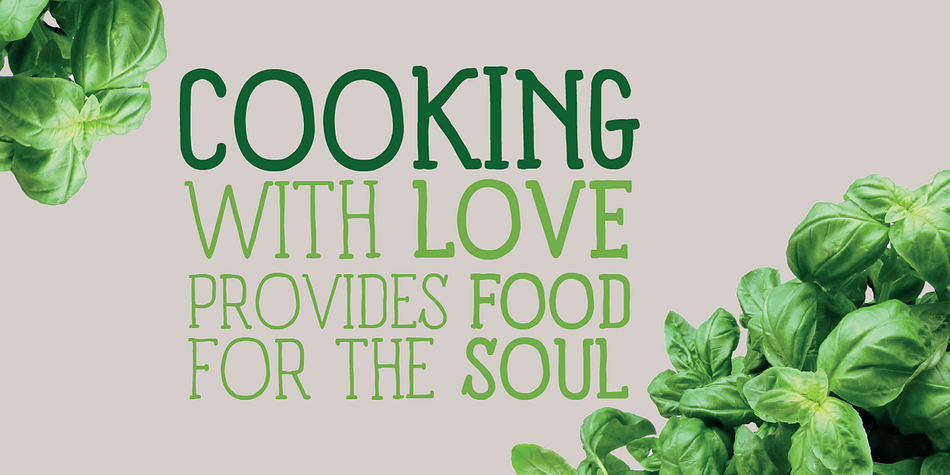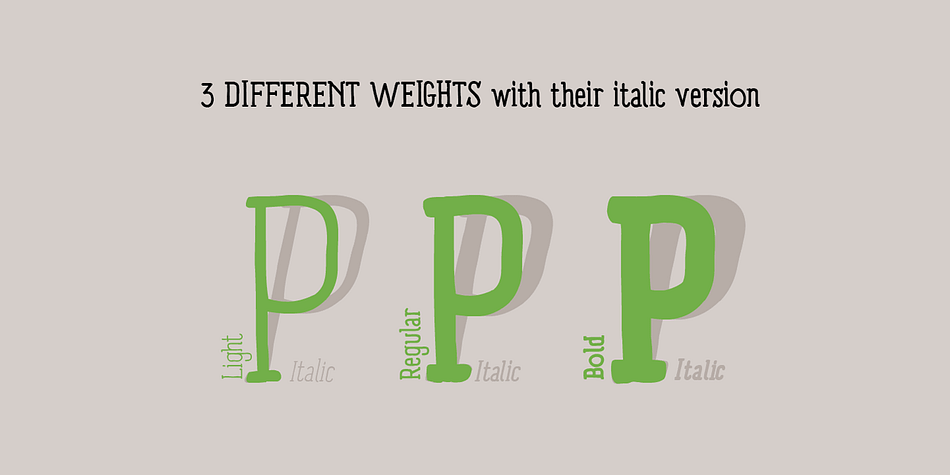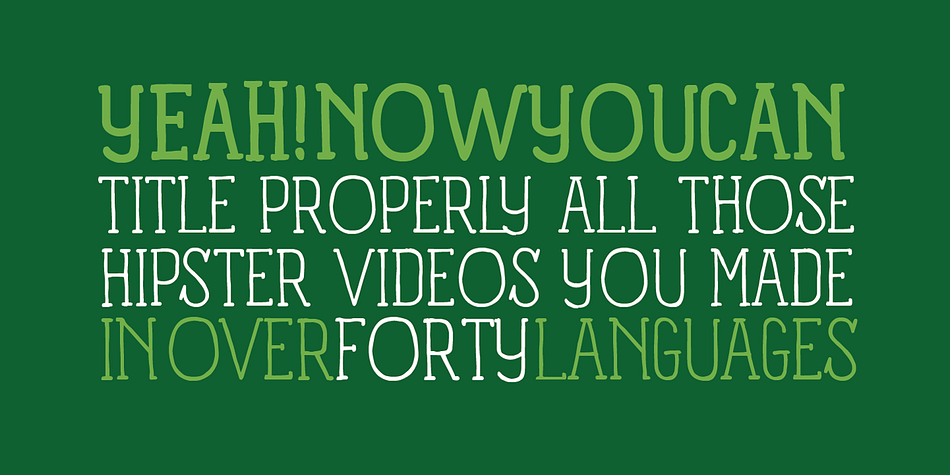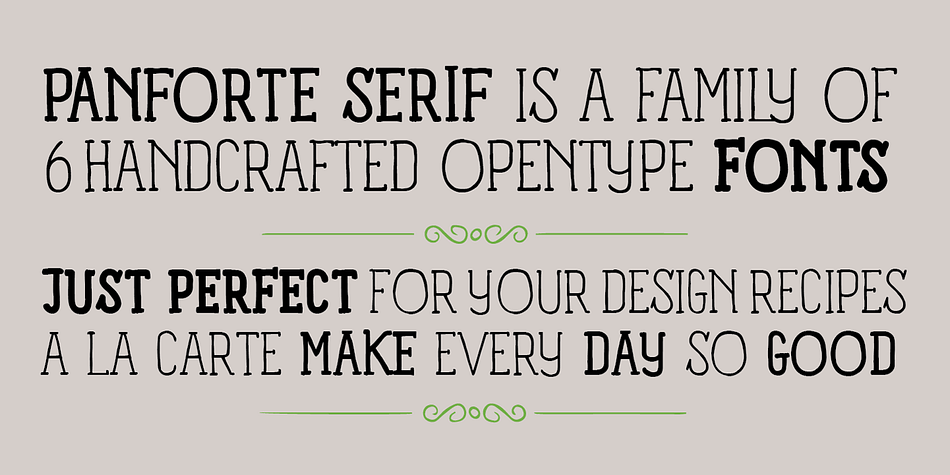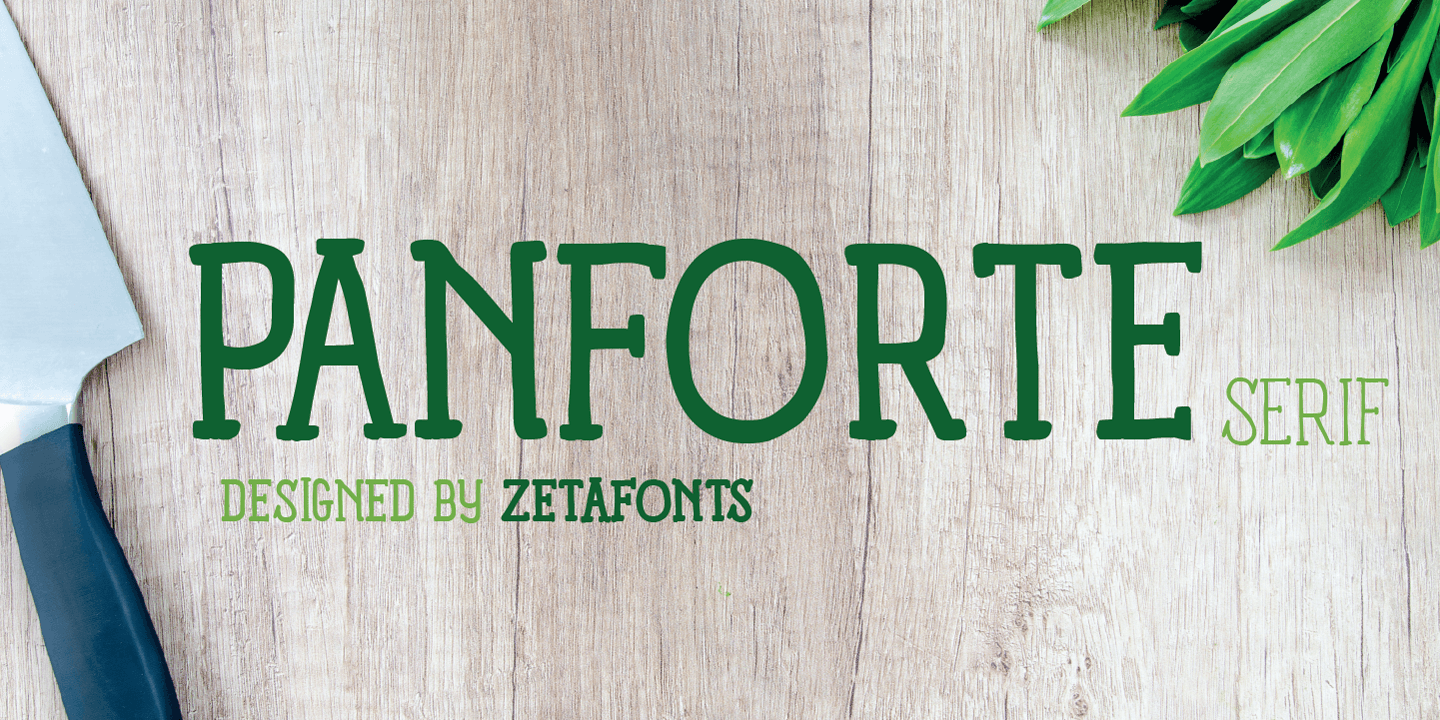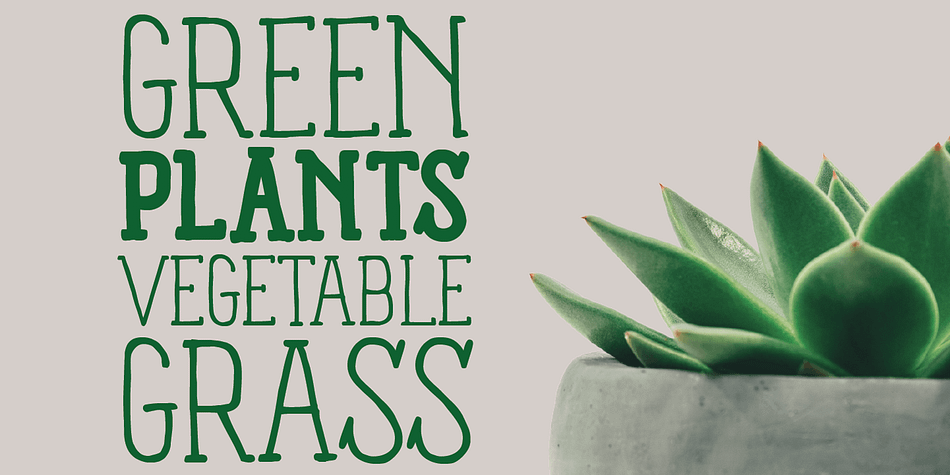
Panforte Serif is a hand drawn font family. This typeface has six styles and was published by Zetafonts.
Panforte Serif is the serif companion of Panforte Pro: a prime-cut font family, deliciously readable online and offline, space-saving and organic, appealing to hipster consumers and seasoned gluttons.